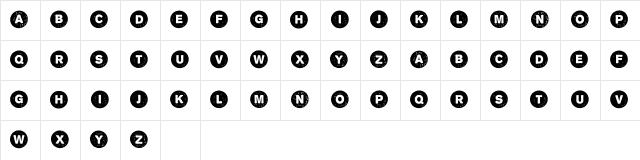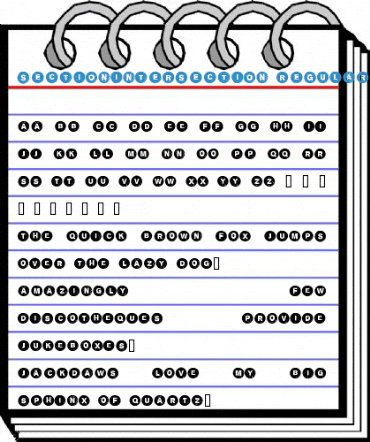
SectionIntersection is a composed and adaptable typeface that performs quietly and consistently across a wide range of design contexts.
Pro Tip: Use SectionIntersection in both headline and body roles to test its range before committing to a single application.